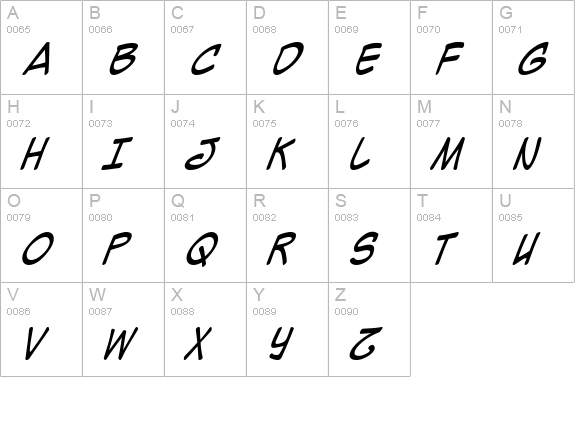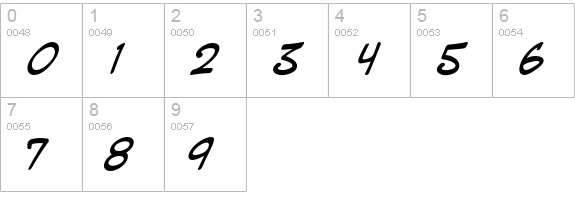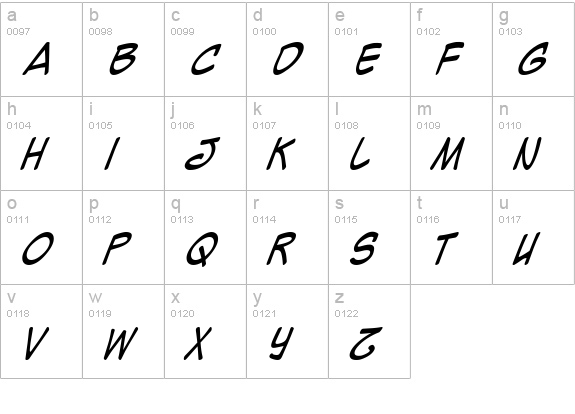
Mighty Zeo Caps Italic is a distinctive, italic variant in the Mighty typeface family \xE2\x80\x94 well suited to design and typography projects.
Mighty Zeo Caps Italic font is a striking and bold typeface designed to make a powerful visual impact. Its sleek and modern design captures attention and adds a touch of sophistication to any project. The italicized characters exude a sense of dynamism and movement, perfect for conveying a sense of energy and momentum. This versatile font is ideal for a wide range of design projects, from branding and advertising to packaging and social media graphics. Whether you're looking to create eye-catching headlines or add a stylish flair to your typography, Mighty Zeo Caps Italic is sure to impress. Best of all, this impressive font is available for free download at FontsMarket.com. Don't miss out on the opportunity to enhance your designs with this bold and distinctive typeface. Download Mighty Zeo Caps Italic today and take your projects to the next level!